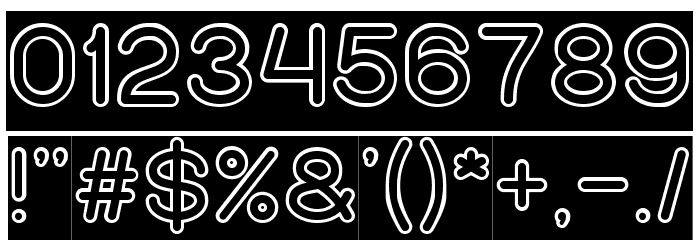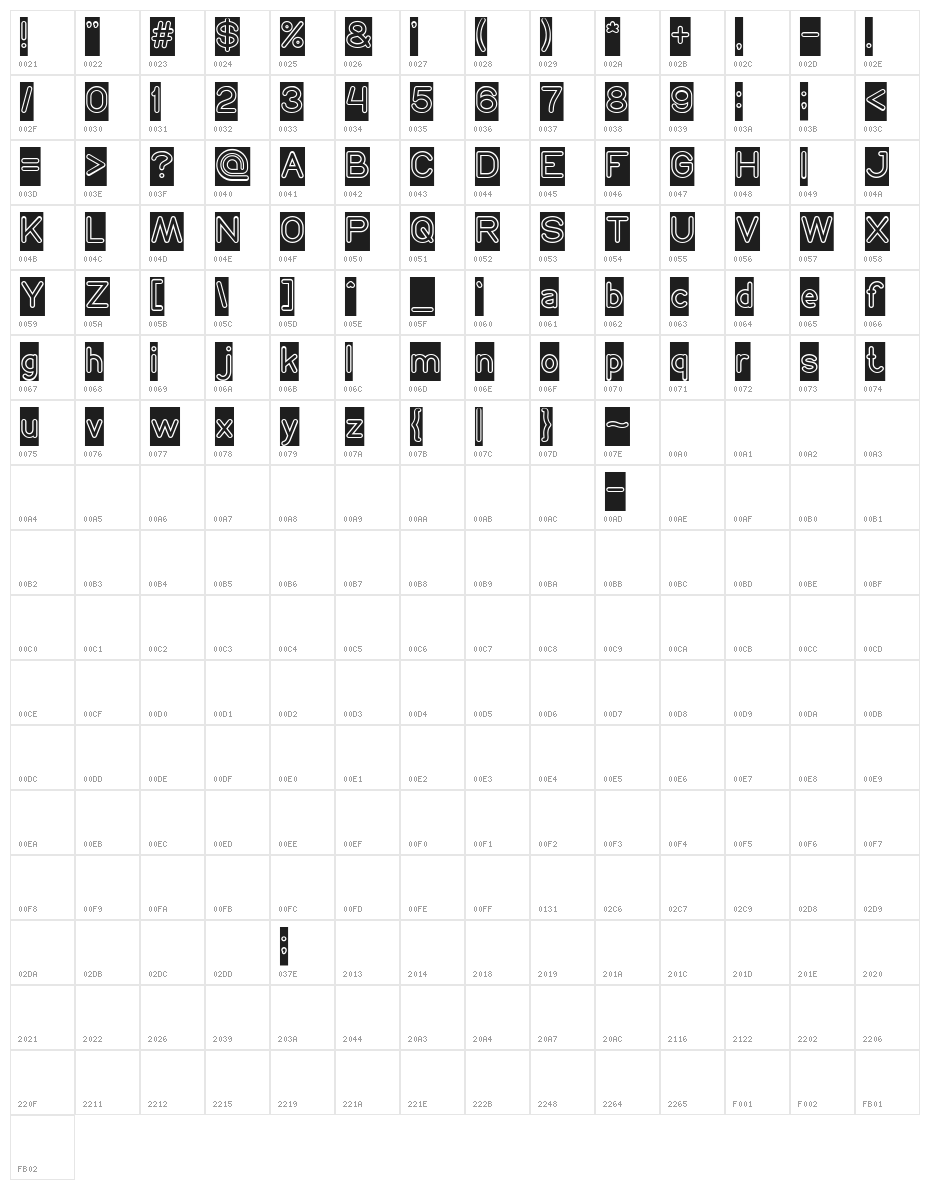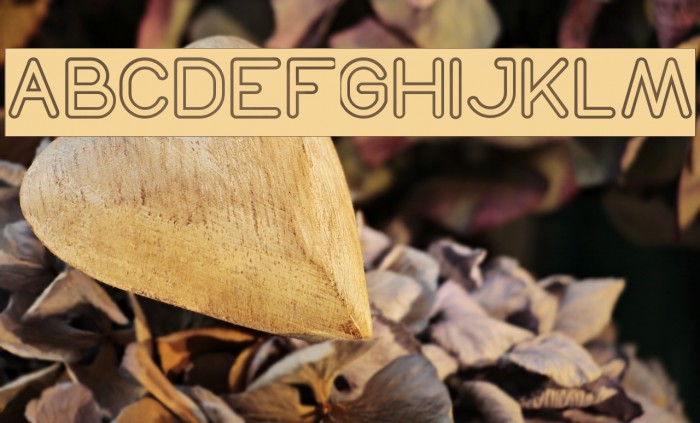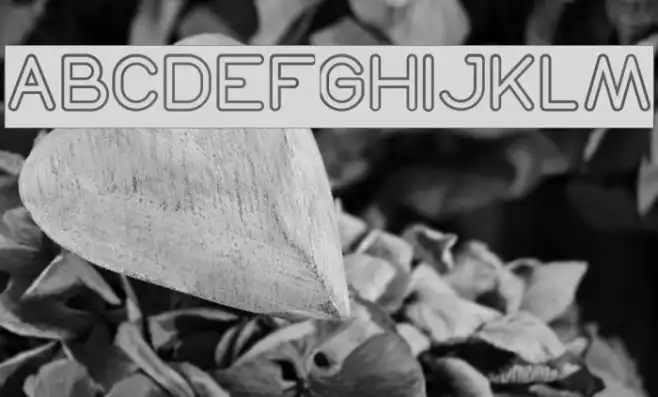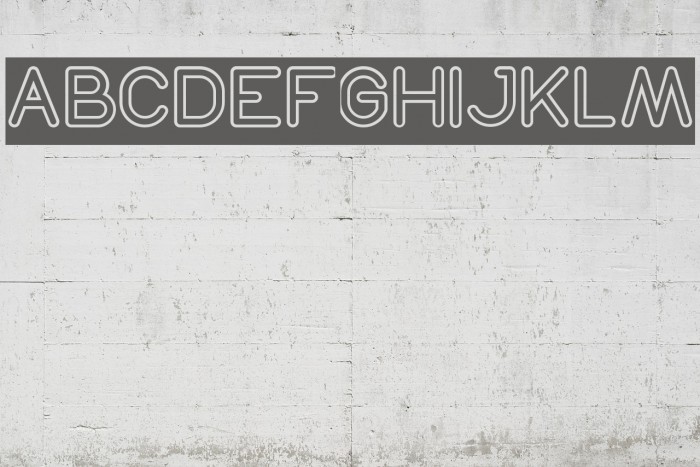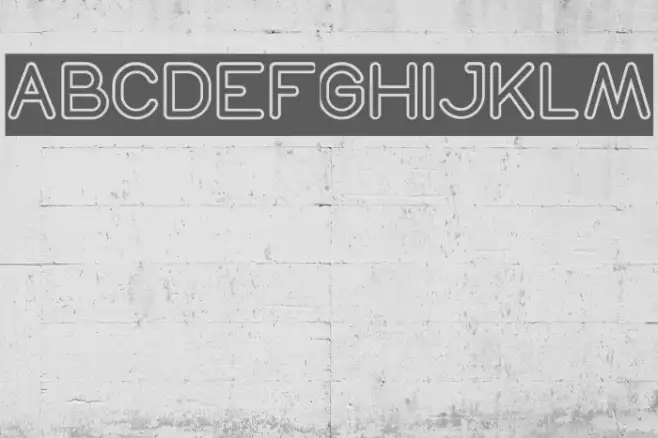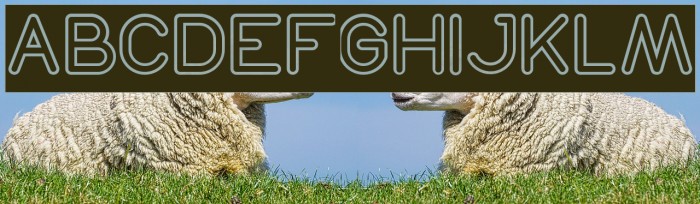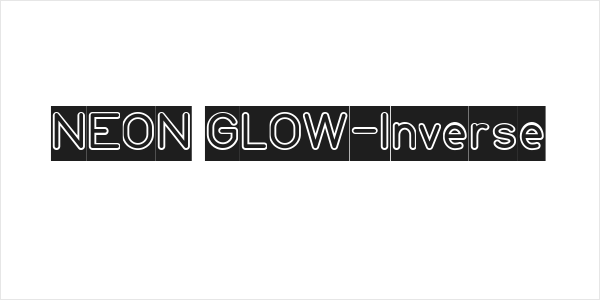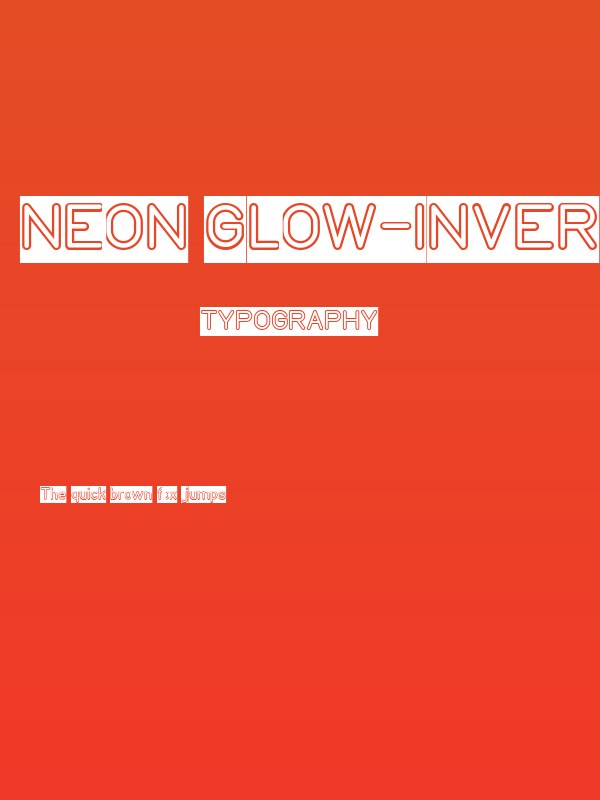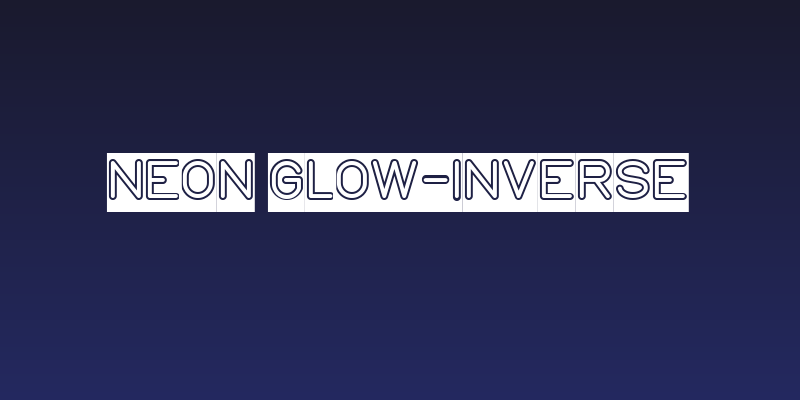
NEON GLOW-Inverse Font
NEON GLOW-Inverse Description
This font features a distinctive neon glow effect, characterized by its outlined letters that mimic the appearance of neon signage. The characters are uniformly structured with a consistent stroke width, creating a clean and modern aesthetic. The uppercase and lowercase letters maintain a cohesive style, with rounded edges that enhance the smooth, flowing appearance. The numerals and special characters are designed to match the overall theme, ensuring a harmonious look across all elements. This font is particularly eye-catching and is ideal for projects that require a vibrant and dynamic visual impact.
| Proposed Projects | Ideal for neon-themed designs, signage, posters, and digital media that require a striking visual impact. |